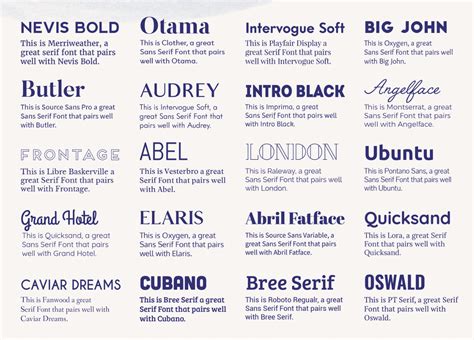
Discover How to Express Yourself Through Different Fonts and Enhance Your Creative Writing!
Are you looking for a creative way to express yourself through your writing? Do you want to make your writing stand out from the rest? Discover how to express yourself through different fonts and enhance your creative writing!
Did you know that the font you choose for your writing can make a big difference to how your writing is perceived? With the right typeface, you can make a statement, evoke emotion, and create a unique style that reflects your personality.
Are you ready to take your writing to the next level? Follow these tips to explore how fonts can help you express yourself:
1. Experiment with different font families. Experiment with different font families to find the ones that best reflect your voice and style. Each typeface has its own personality, so play around until you find the right fit.
2. Use bold and italics to emphasize key points. Bold and italic fonts can help you draw attention to certain words or phrases. Use them sparingly to add emphasis and make your writing stand out.
3. Try mixing and matching fonts. Don’t be afraid to mix and match fonts to create an interesting and unique style. Just be sure not to go overboard and keep it readable.
These are just a few tips to help you express yourself through different fonts and enhance your creative writing. So why not take a chance and explore the possibilities? With the right font, you can make your writing more engaging and powerful.
Discover How to Express Yourself Through Different Fonts and Enhance Your Creative Writing!
Writing is a medium of self-expression that allows you to express your thoughts and feelings in a creative way. It also allows you to convey your ideas to others in a unique and meaningful way. Fonts are one of the primary tools used when writing, and the type of font you choose will have a significant impact on the overall look and feel of your writing. There are many different types of fonts available, and each one can be used to express yourself in a different way.
Why Is Font Selection Important?
Font selection is important because it helps to create a certain mood or atmosphere in your writing. Different fonts can evoke different emotions, and they can help to convey a certain message to your readers. For example, a serif font can convey a more formal or professional look, while a more whimsical font can give your writing a more lighthearted and fun feel. By carefully selecting the right font for your writing, you can ensure that your message is communicated effectively.
Choosing the Right Font for Your Writing
When it comes to choosing the right font for your writing, it is important to consider the type of message you are trying to convey. For example, if you are writing a formal document, such as a business proposal, you should choose a more conservative font. On the other hand, if you are writing something more creative, such as a poem, then you may want to choose a more playful or whimsical font. It is also important to consider the size of the font you choose, as this will affect the overall look and feel of your writing.
Exploring Different Fonts
Exploring different fonts is a great way to get inspired and to find the right font for your writing. There are many free font websites available online, where you can browse and download different fonts. You can also find a variety of paid fonts, which can give your writing a professional look. Experimenting with different fonts is a great way to find the perfect font for your writing.
Using Fonts to Enhance Your Writing Style
Once you have chosen a font, you can use it to enhance your writing style. For example, if you are writing a story, you can use a more whimsical font to create a more lighthearted atmosphere. On the other hand, if you are writing a business proposal, you can use a more formal font to convey a serious and professional tone. Using the right font can help to add depth to your writing and make it more engaging for your readers.
Using Fonts to Create Visual Interest
Fonts can also be used to create visual interest in your writing. For example, if you are writing a blog post, you can use different fonts to break up the text and make it easier to read. You can also use different fonts to draw attention to certain words or phrases. This can be a great way to emphasize an important point or to make a certain part of your writing stand out.
Finding the Right Balance Between Fonts and Content
When it comes to using fonts to enhance your writing, it is important to find the right balance between the font and the content. Too much font can be distracting and can take away from the overall message you are trying to convey. On the other hand, too little font can make your writing look dull and uninteresting. Finding the right balance between font and content can help to make your writing more engaging and effective.
Discover How to Express Yourself Through Different Fonts and Enhance Your Creative Writing!
What fonts can I use to express myself?
You can use any font you like that is available on your device. Popular fonts include Helvetica, Times New Roman, Georgia, and Arial.
How can fonts help me enhance my creative writing?
Different fonts can be used to create different tones and atmospheres when writing. For example, an elegant font can be used to create a romantic atmosphere while a bold font can be used to create an intense atmosphere.